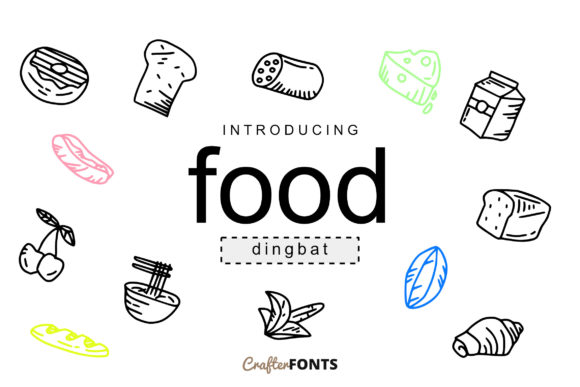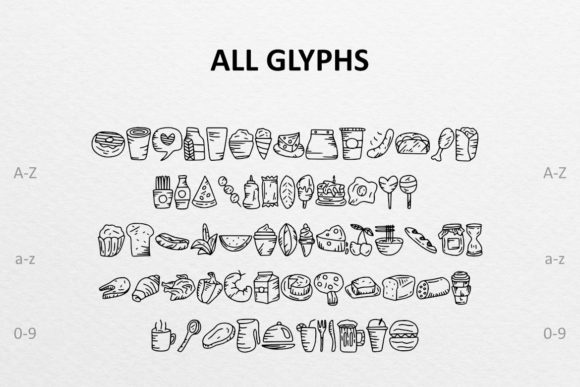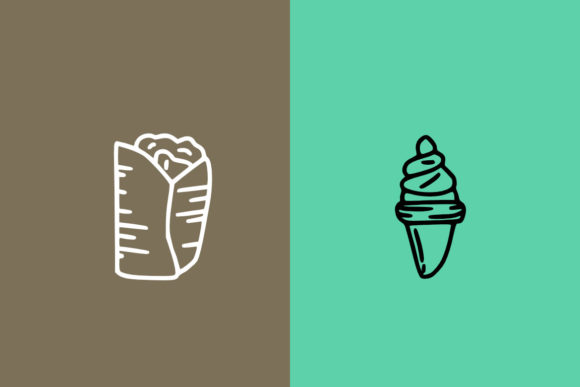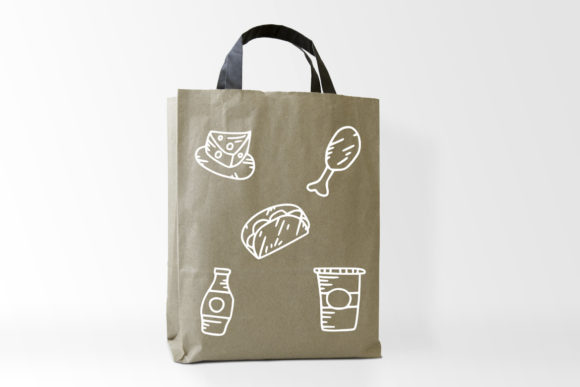
Food Doodle Font
About Food Doodle Font
Food Doodle is a delightful and versatile dingbats font that brings a touch of fun and creativity to your designs. With its collection of 62 symbols, this font is perfect for a wide range of projects, including logos, ornaments, and any creations related to food and culinary themes.
The symbols in Food Doodle are designed to represent various food items and related elements. From fruits and vegetables to desserts, utensils, and culinary tools, the font offers a diverse set of symbols that can add a playful and whimsical vibe to your designs.
Whether you’re working on menus, recipe books, food packaging, or any other project related to the culinary world, Food Doodle provides a charming set of symbols that can enhance your visual compositions. The hand-drawn style of the symbols adds a personal and artisanal touch, creating a warm and inviting atmosphere in your designs.
Furthermore, Food Doodle can be utilized in various formats and mediums. You can seamlessly integrate the symbols into digital designs, such as websites, social media graphics, or digital menus. They can also be used for print materials, including restaurant menus, recipe cards, and food-related merchandise, allowing you to create visually appealing and cohesive designs.
The symbols in Food Doodle are designed to be scalable, ensuring that they maintain their hand-drawn details and legibility regardless of the size or resolution of your design. This flexibility allows you to use Food Doodle in both small-scale and large-format projects, accommodating a range of applications.
By incorporating Food Doodle into your designs, you can add a touch of playfulness and creativity to your food-related projects. The whimsical and charming nature of the symbols brings a sense of joy and delight, making them particularly suitable for projects that aim to evoke a positive and lighthearted response from viewers.
So go ahead and explore the possibilities that Food Doodle offers. Let your creativity run wild and use the diverse symbols to create captivating designs that celebrate the world of food. With Food Doodle, you can infuse your designs with a sense of fun and whimsy, creating visually engaging and memorable compositions that leave a lasting impression.